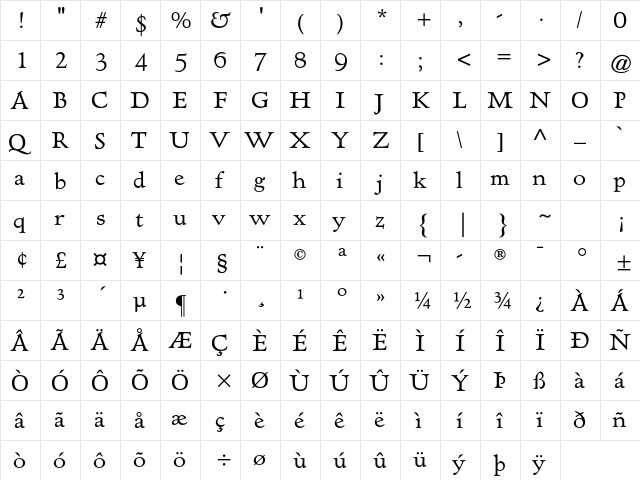
Hadriano Std Light
| Designer | Frederic W. Goudy |
Design Context for Hadriano Std Typeface
Hadriano Std offers clean, dependable letterforms without strong stylistic allegiance, making it a practical choice for designers who need flexibility. Its slender proportions lend an understated elegance to any composition.